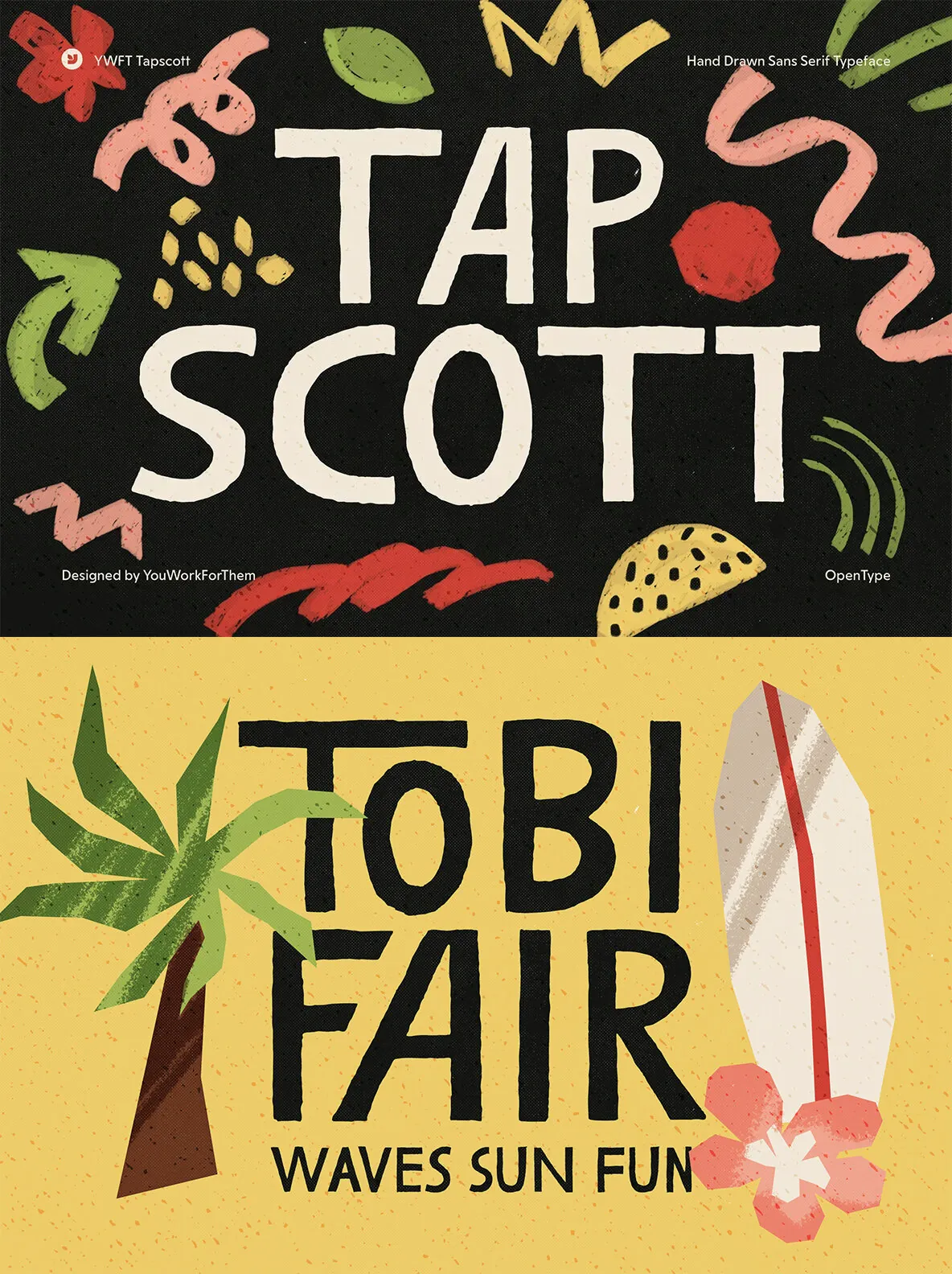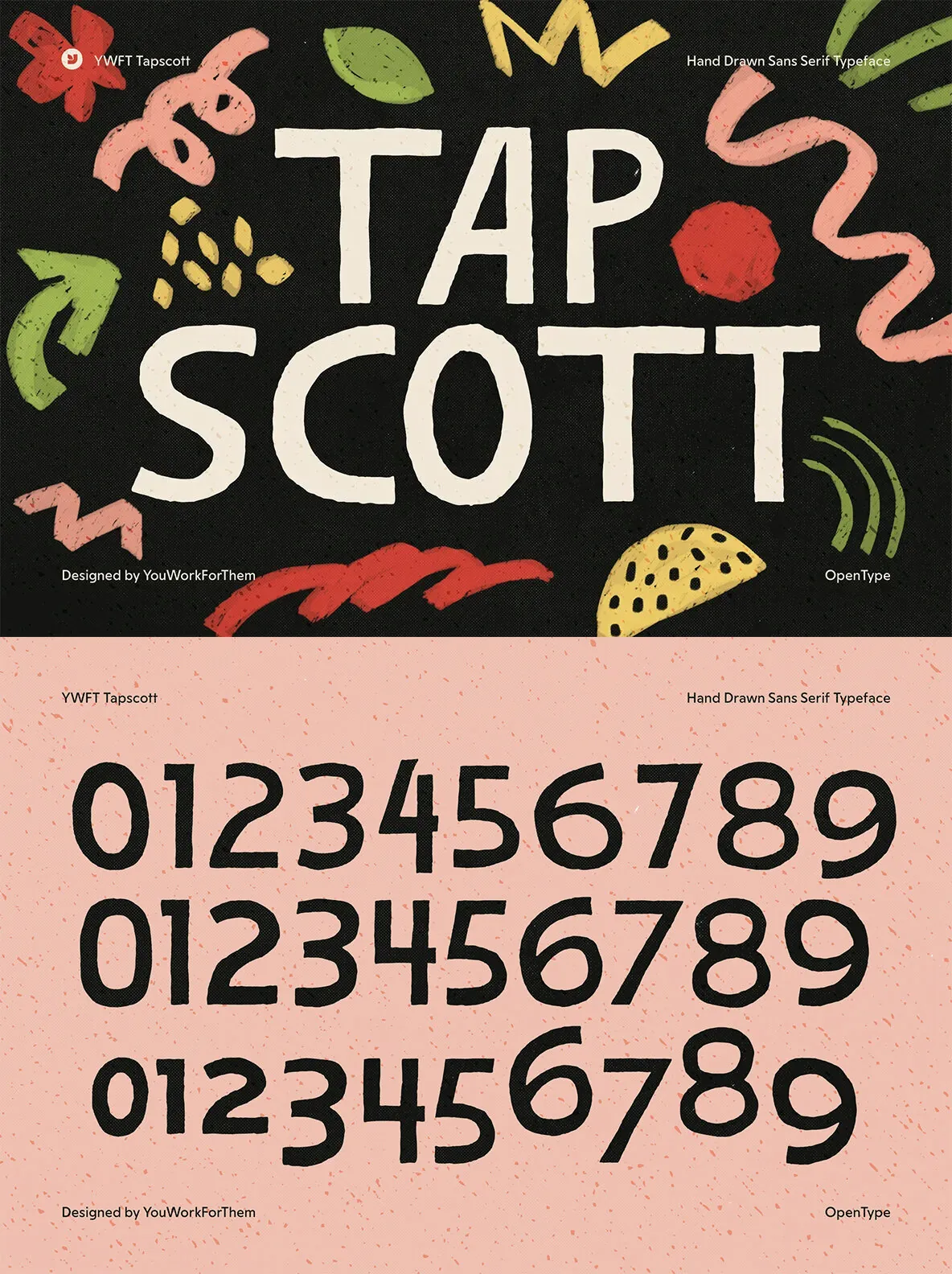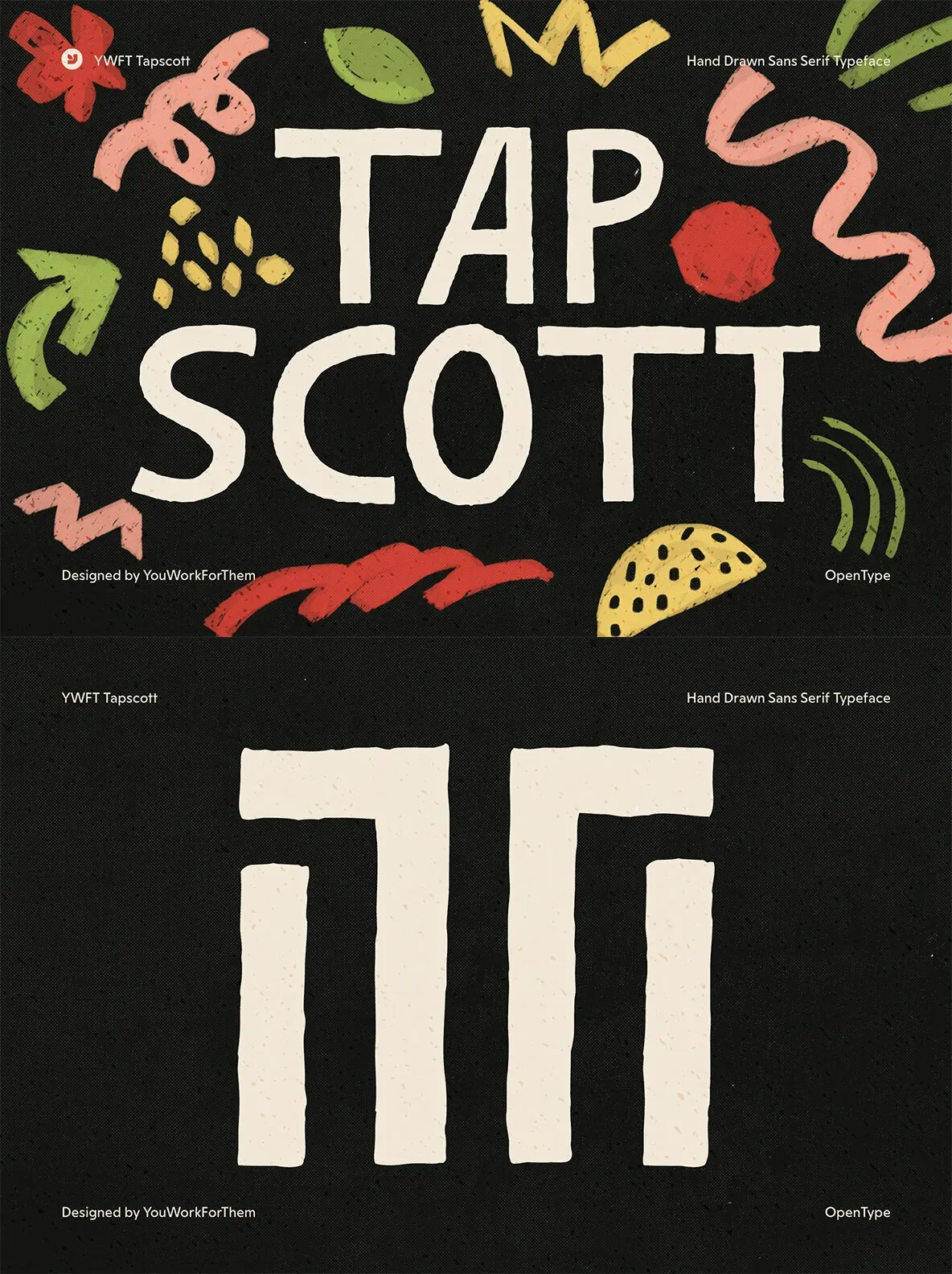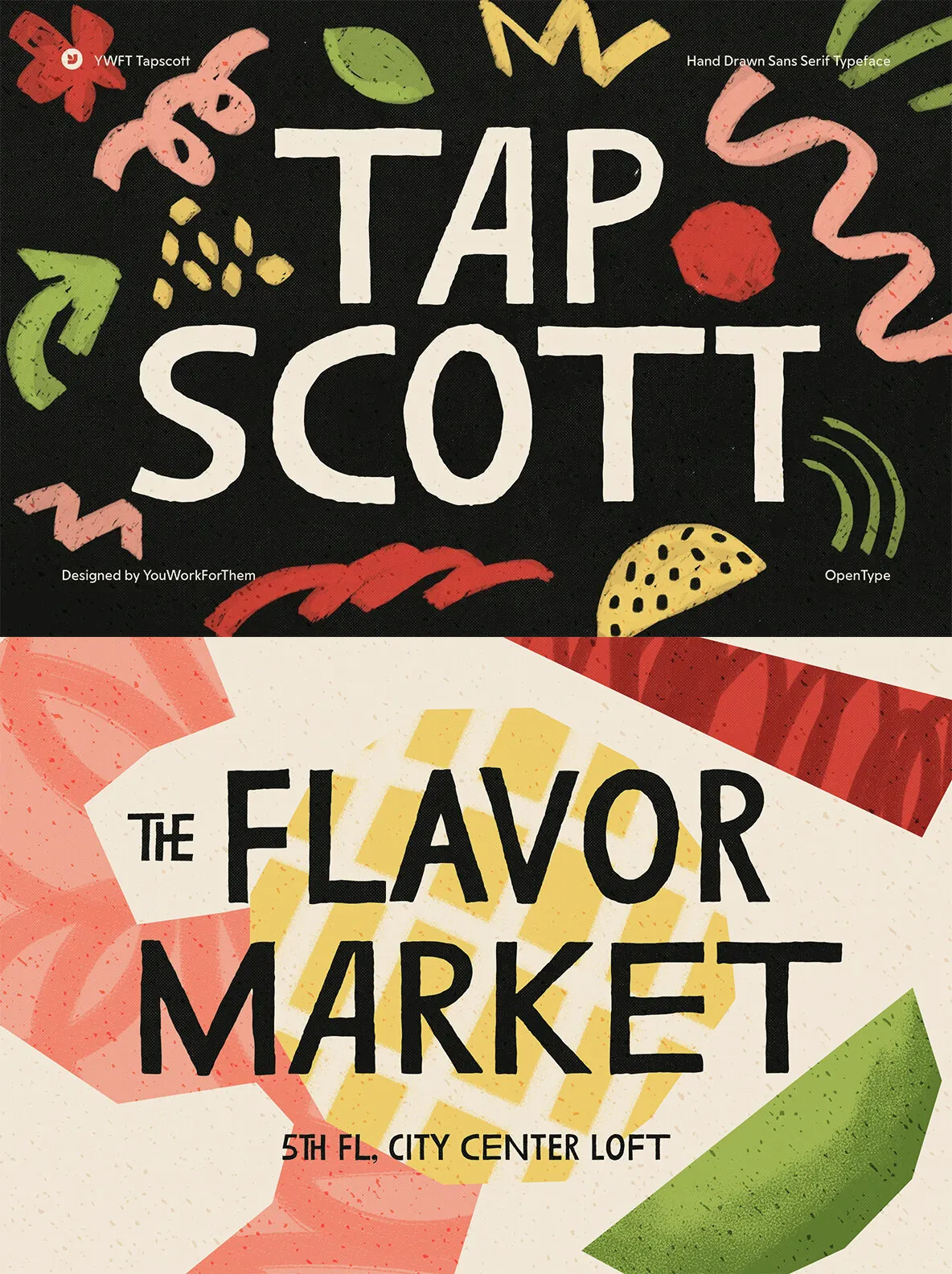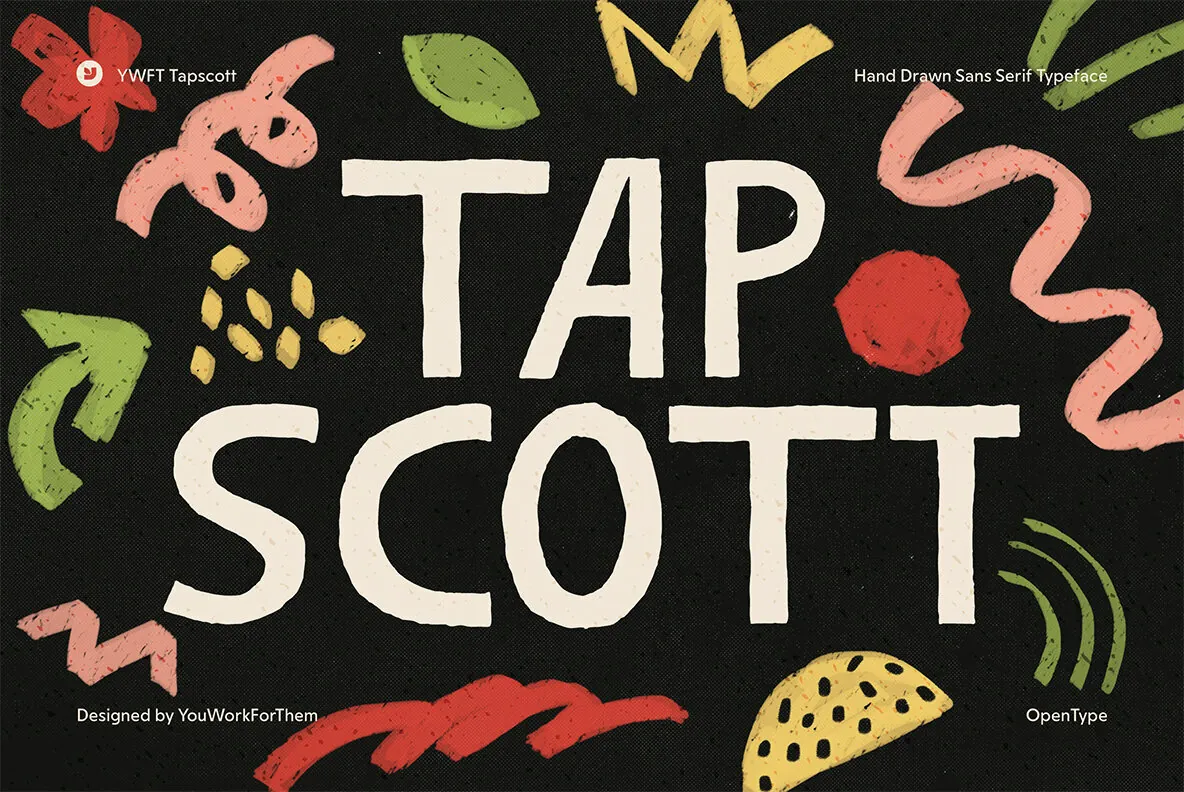
Unleash Creative Jazz with YWFT Tapscott: A Font Inspired by Harmonious Aesthetics
YWFT Tapscott is an OpenType font inspired by the legendary jazz pianist Horace Tapscott, capturing the essence of his unique musical style. This typeface pays homage to the aesthetics of 60s and 70s jazz album covers, bringing a vintage charm to your designs. The font includes a variety of alternate characters and ligatures, offering creative flexibility and a personalized touch to your typography.
Ideal for use in music-related projects, children’s artwork, and retro-themed designs, YWFT Tapscott also complements American and French-inspired projects beautifully. Its versatile and nostalgic appeal makes it a valuable addition to any designer’s toolkit, providing an authentic, unified spirit to your creative endeavors.